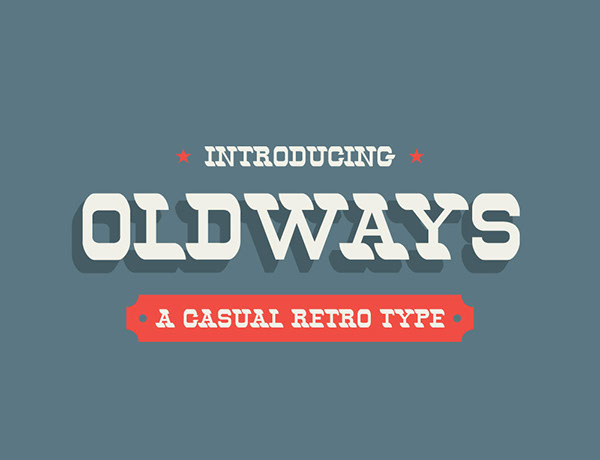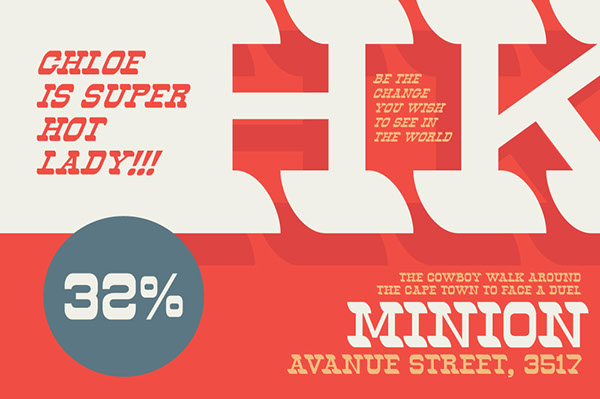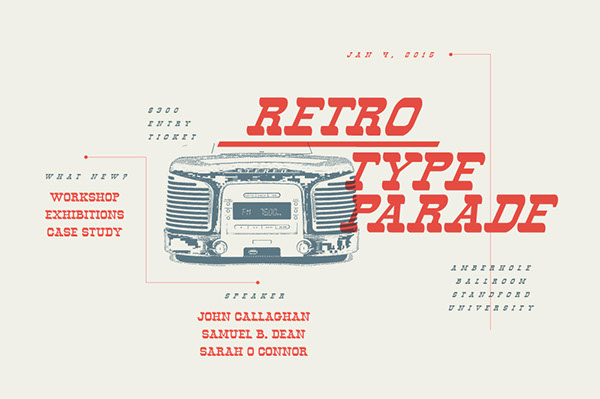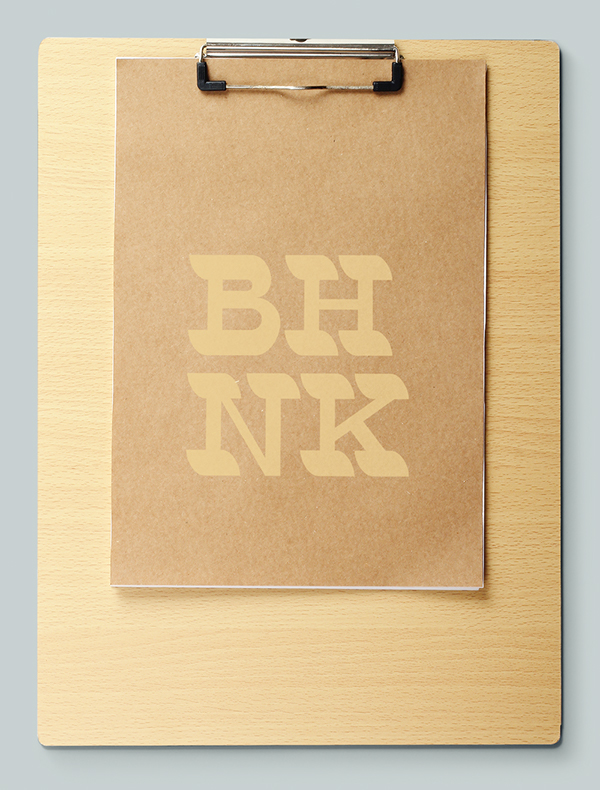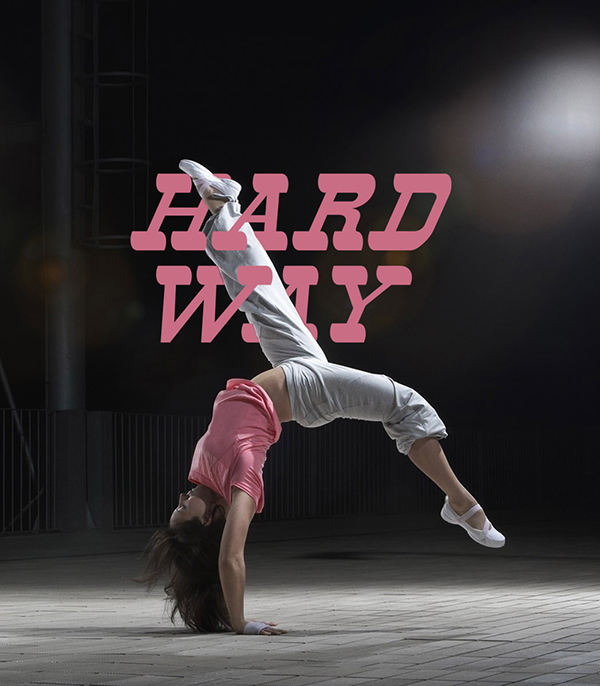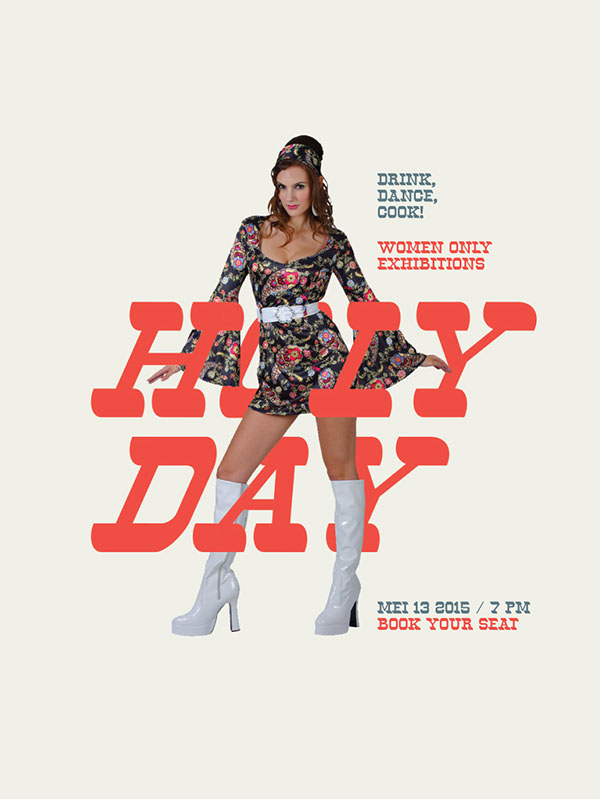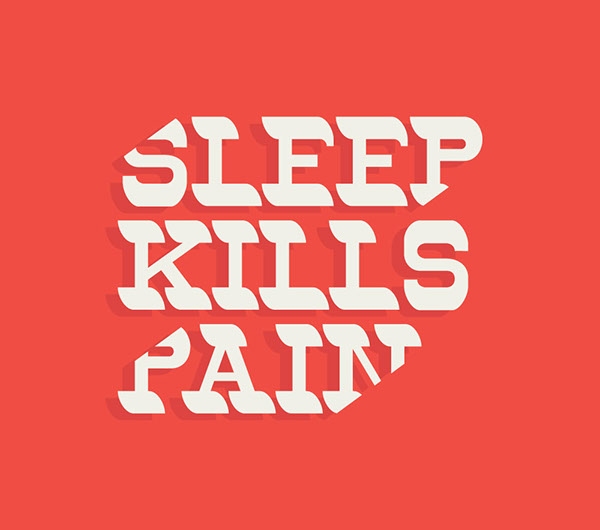
Oldways is a retro font that combines old western typography with the modern design style. Designed by Artimasa Studio, Oldways is suitable for posters, branding, logos, etc. This typeface is available in 2 styles: regular and italic. Free for personal or commercial projects!